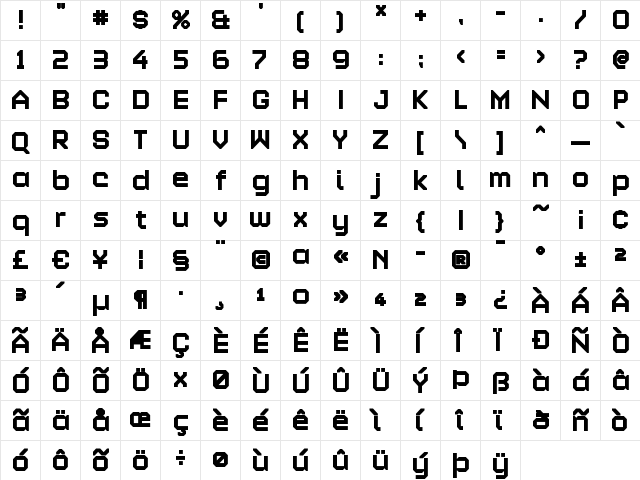
Alloy Bold Font Preview
Alloy Bold
Alloy Bold Font Details
| Foundry | YouWorkForThem |
Design Context for Alloy Typeface
Alloy offers clean, dependable letterforms without strong stylistic allegiance, making it a practical choice for designers who need flexibility. Its bold stroke weight gives it real presence on the page.